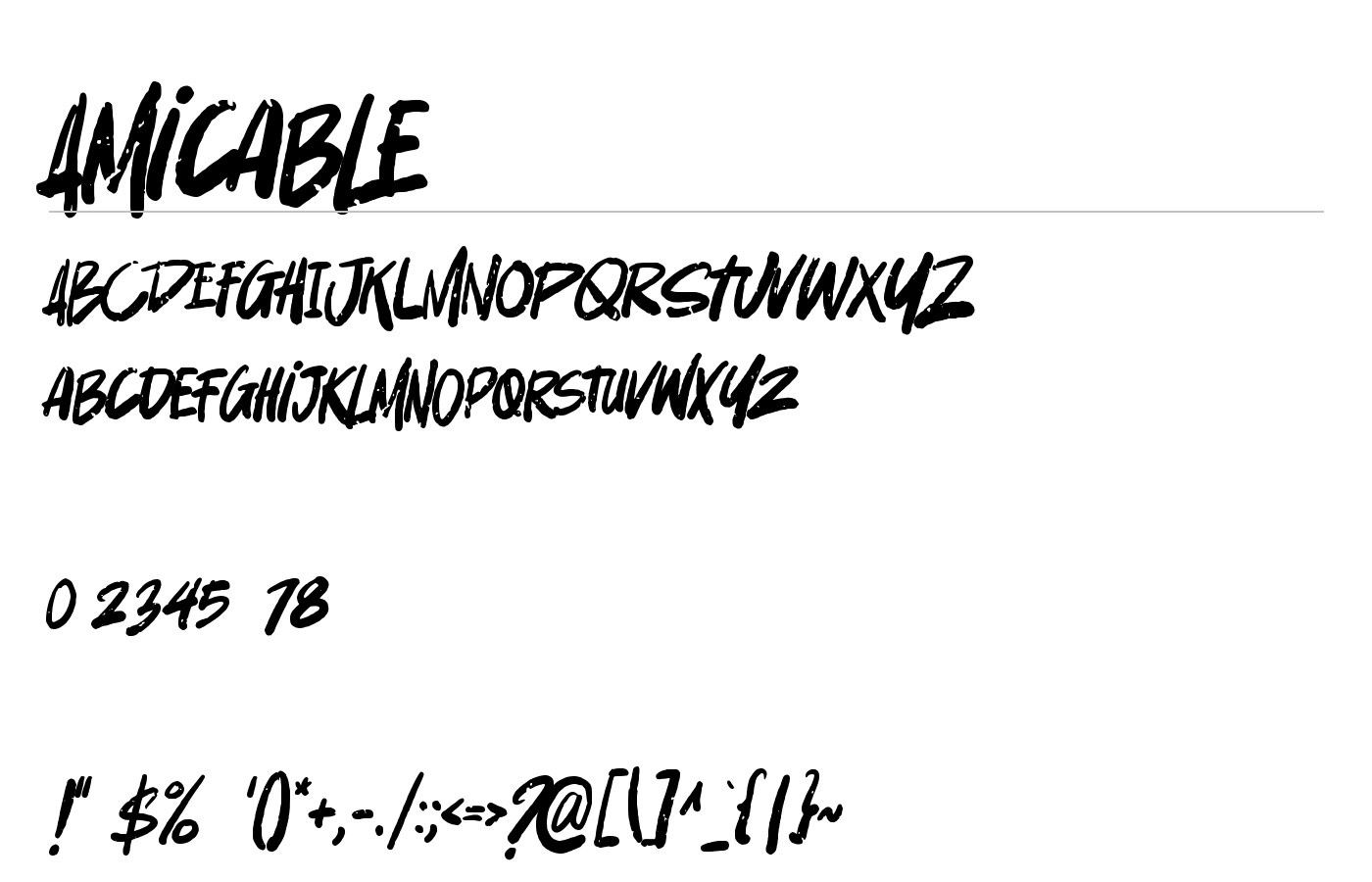
Amicable is a bold, handwritten script font with a casual and energetic feel, characterized by its rough, brushstroke texture and slightly irregular letterforms. Its tall x-height and dynamic, slightly condensed style make it ideal for eye-catching headlines, logos, and creative designs looking to convey friendliness and personality. This font works best in informal, lively contexts such as posters, branding, and social media where a bold, handcrafted aesthetic is desired.
Amicable Font
About Amicable Font